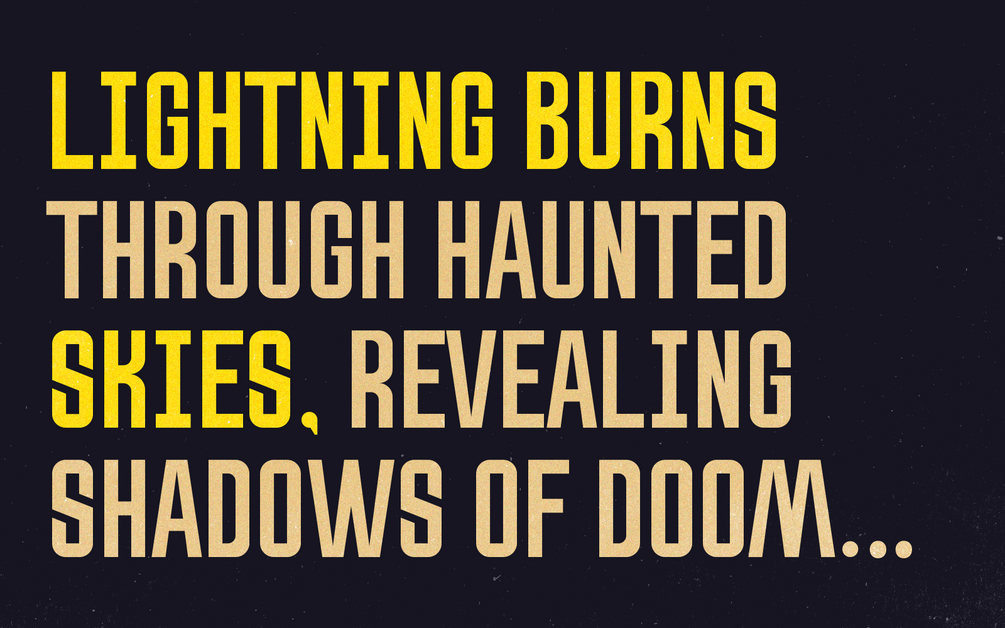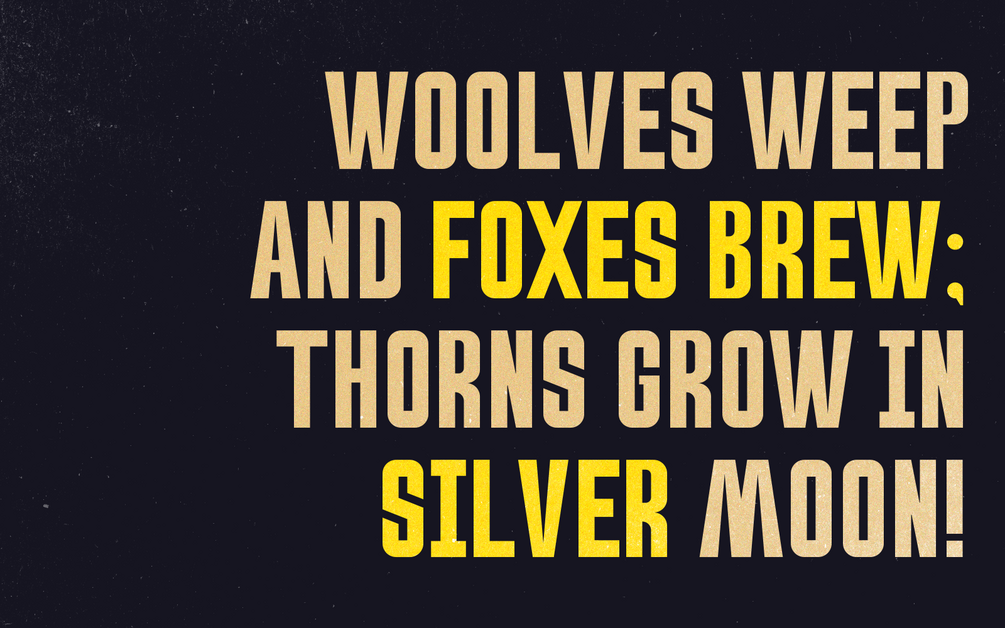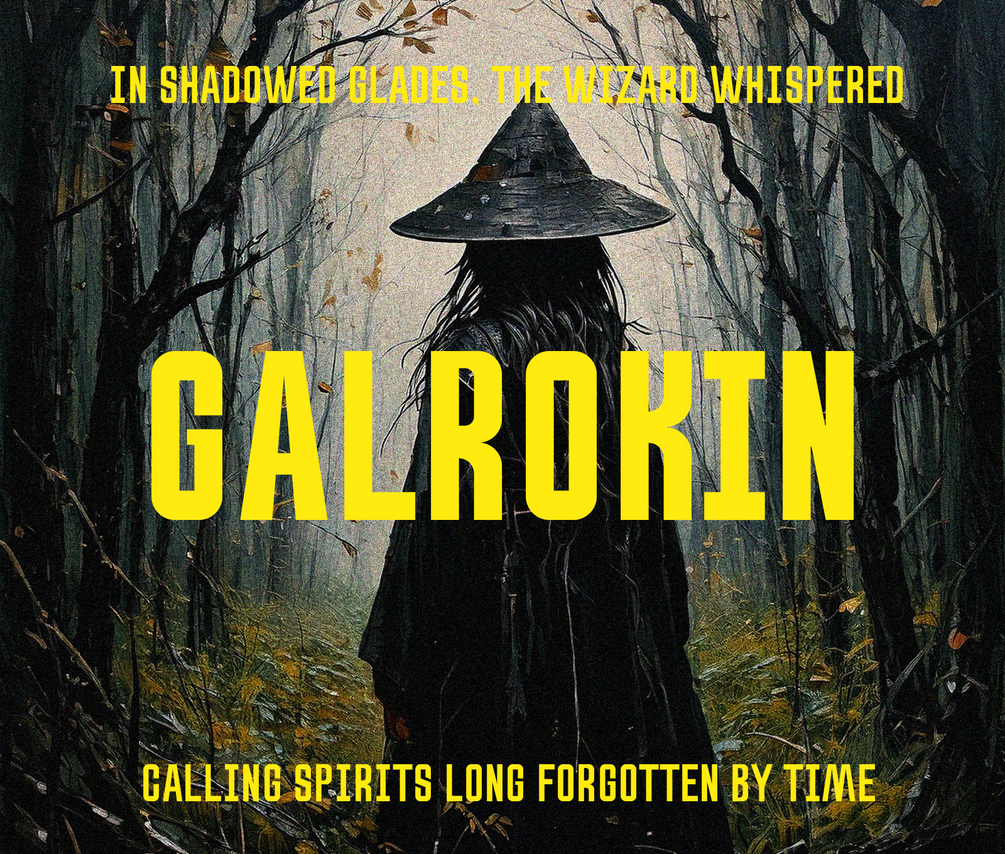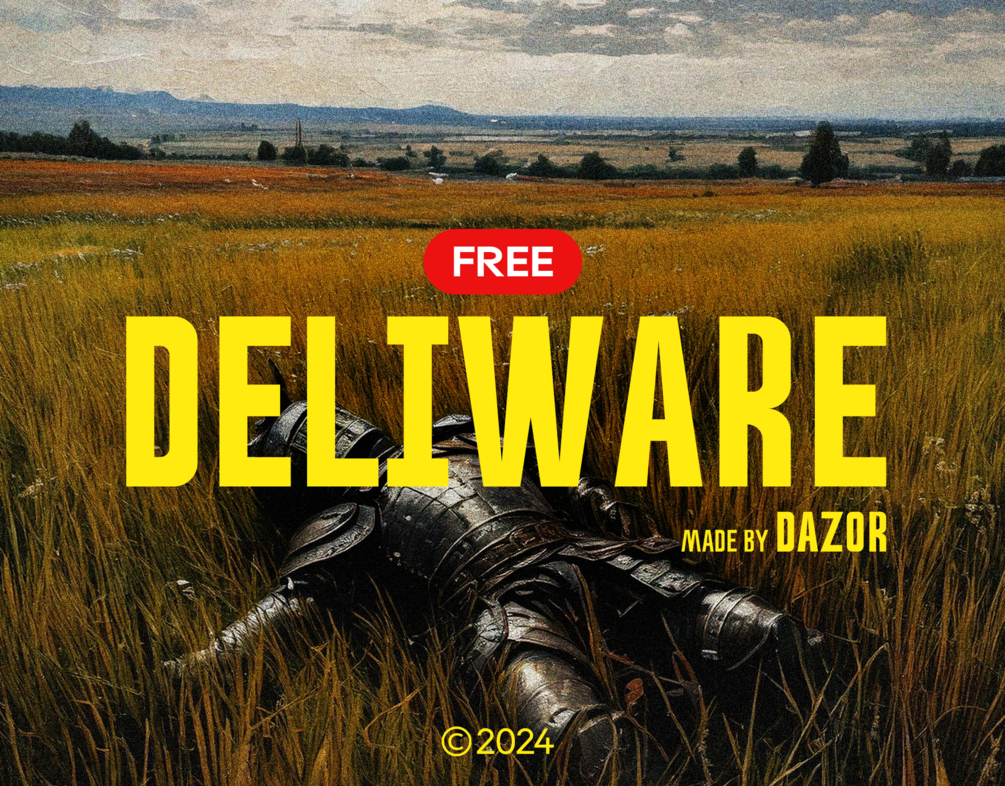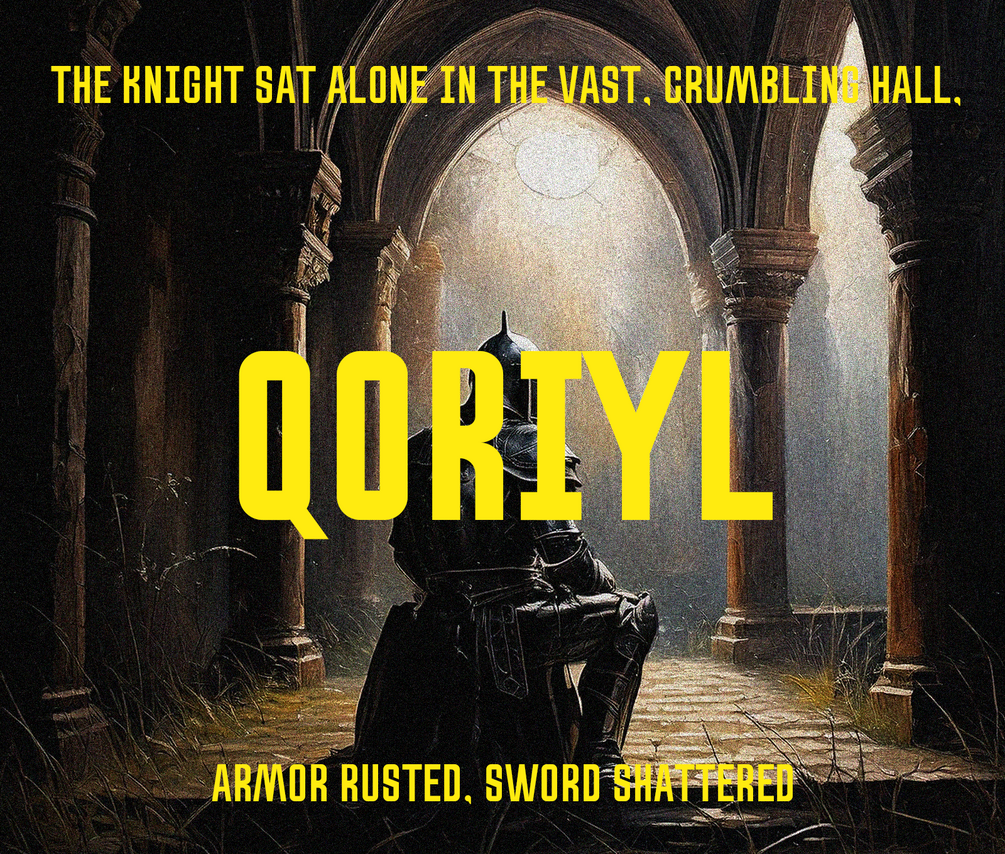
DELIWARE - Free Display Typeface
This bold, condensed display typeface combines almost black thickness with vintage influences, creating a powerful visual impact. Inspired by classic type found in mid-20th-century advertisements and posters, its heavy strokes and compact letterforms evoke a sense of nostalgia and strength.
Perfect for branding, retro-themed designs, posters, and large headings, this typeface commands attention in any setting, ensuring a timeless, bold presence that stands out.